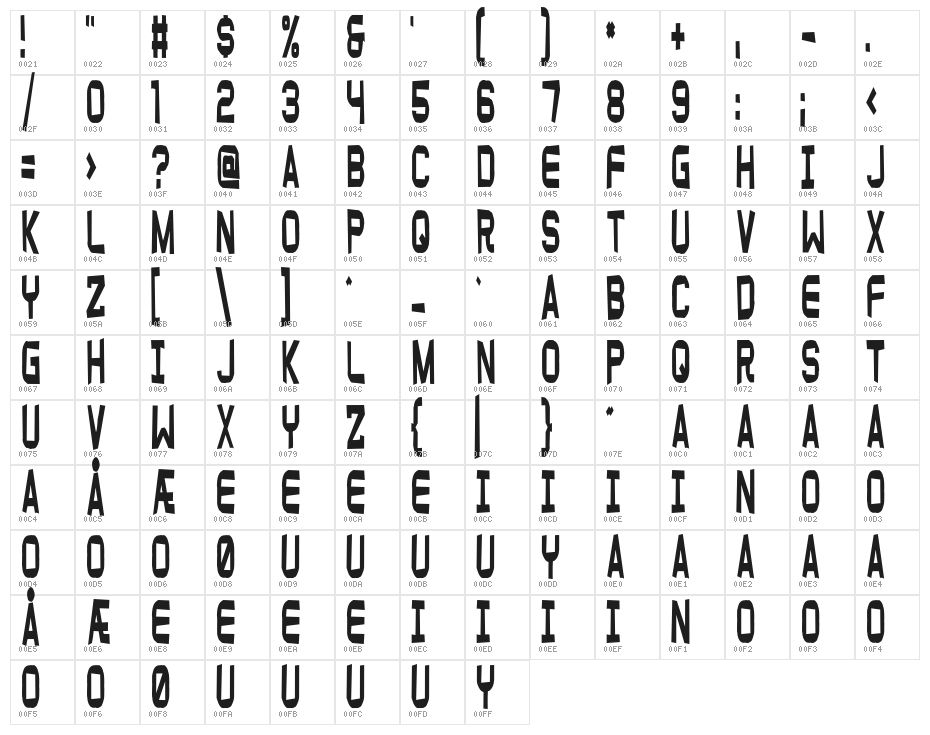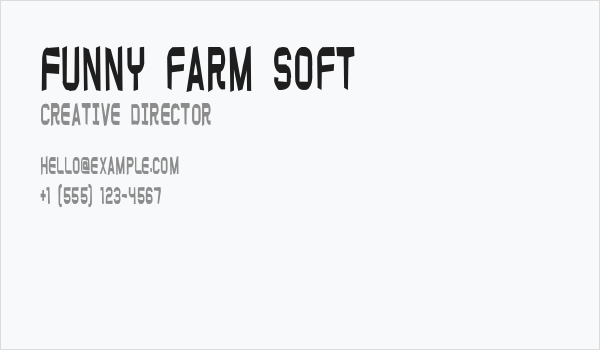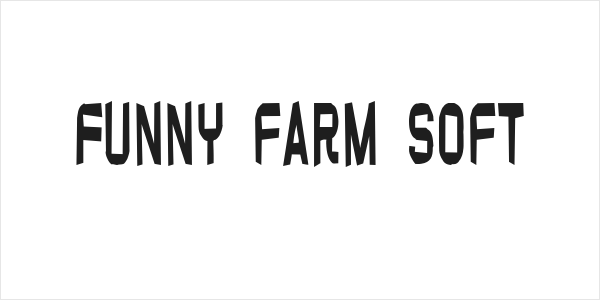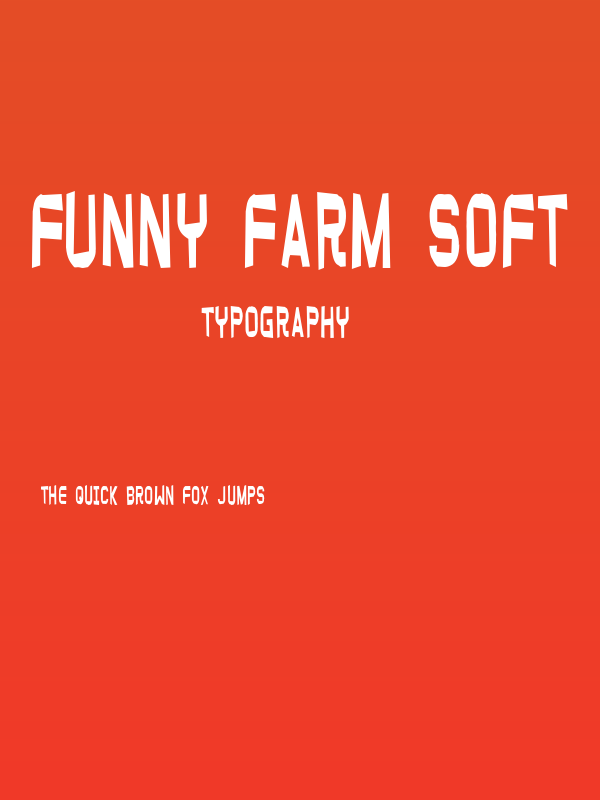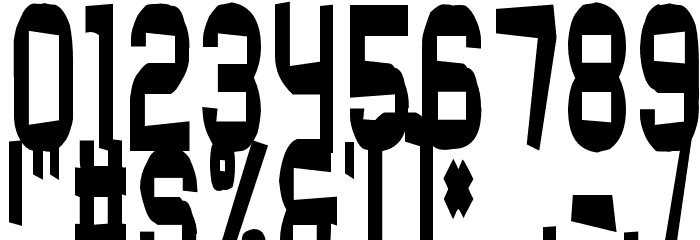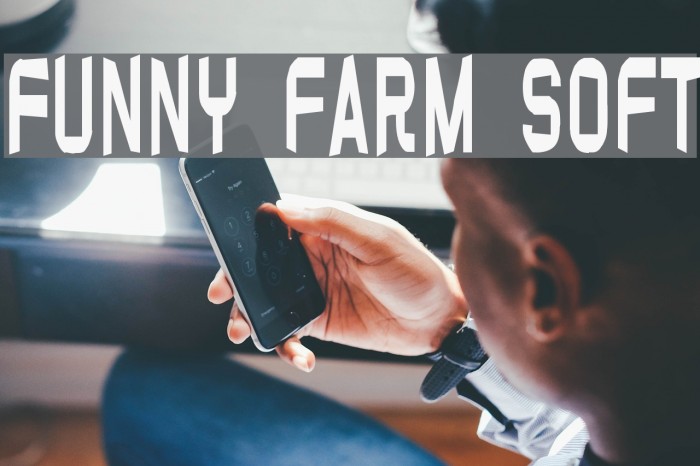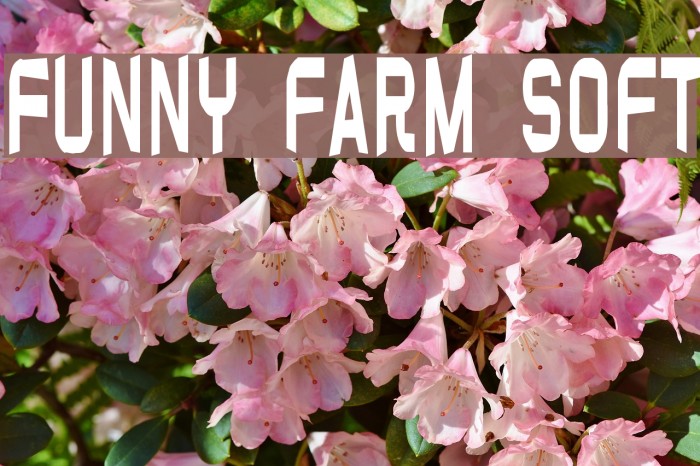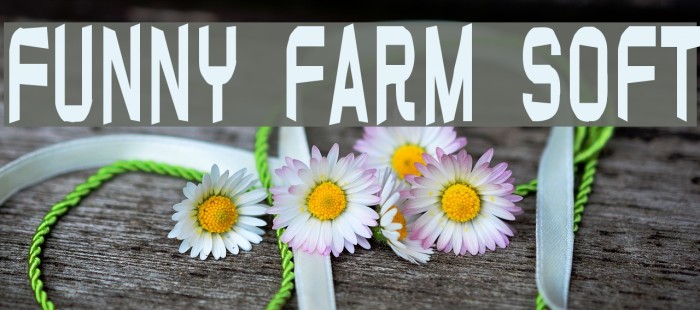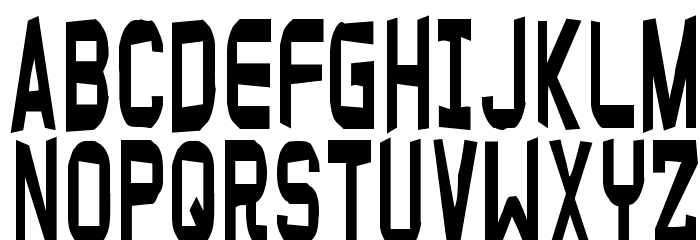
Funny farm soft Font
Funny farm soft Description
This font features a bold and playful design with a distinctively quirky and irregular shape. The characters are blocky and robust, with uneven edges that give them a hand-drawn, whimsical appearance. The uppercase and lowercase letters maintain a consistent style, with exaggerated angles and varying line thicknesses that add to the font's unique charm. The numbers and special characters follow the same playful aesthetic, making the font suitable for creative and informal applications. Its boldness ensures high visibility and impact, making it ideal for attention-grabbing designs.
| Proposed Projects | Ideal for children's books, playful branding, posters, and creative digital content. |